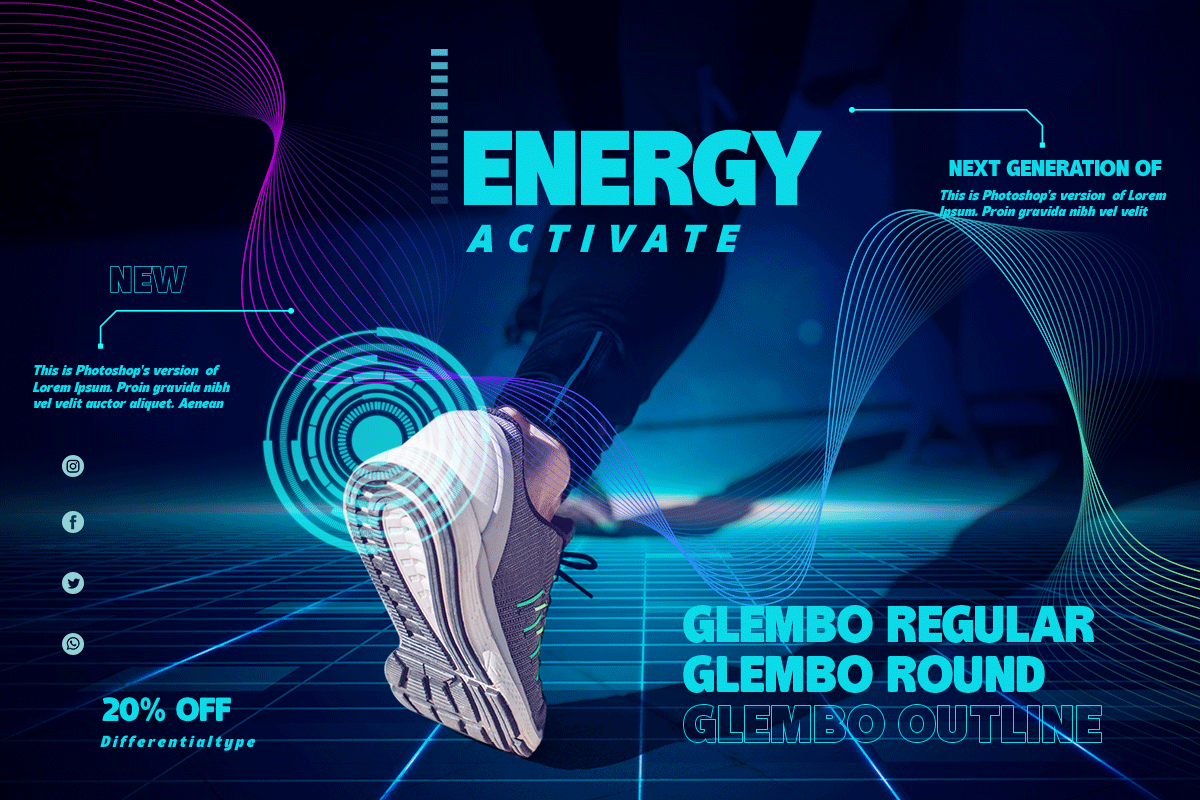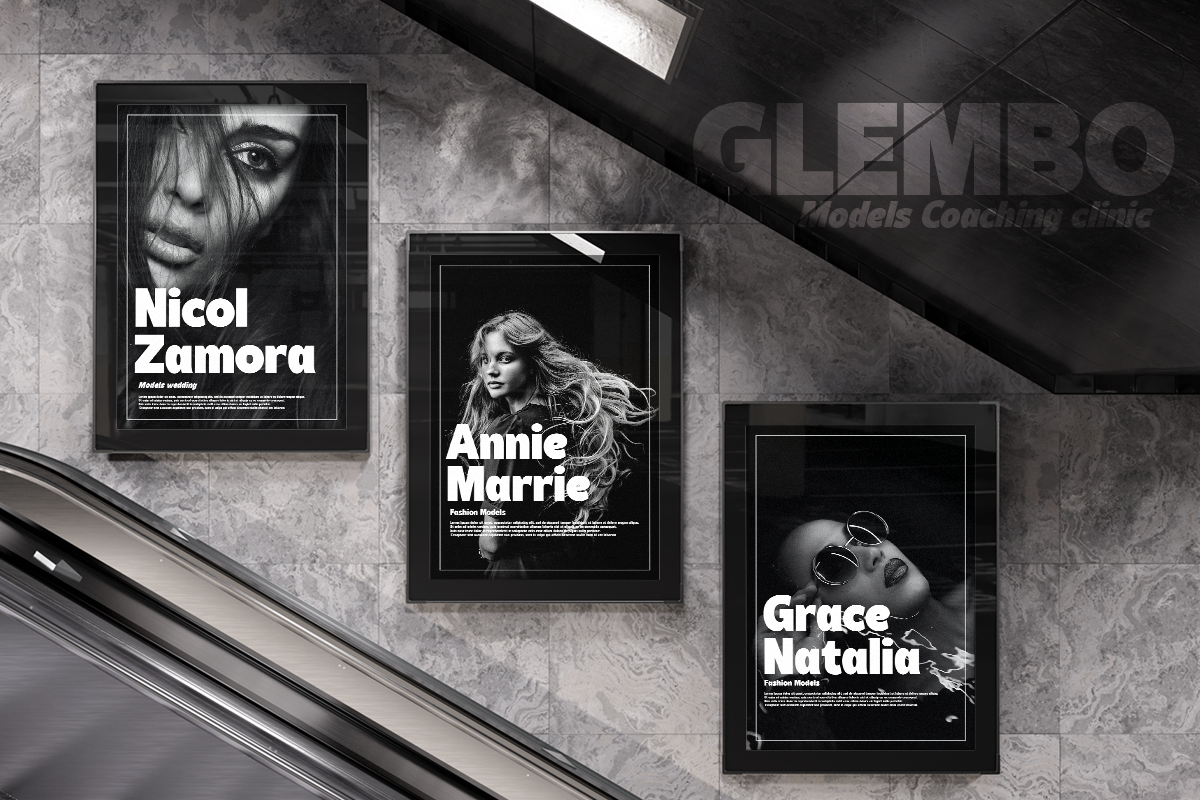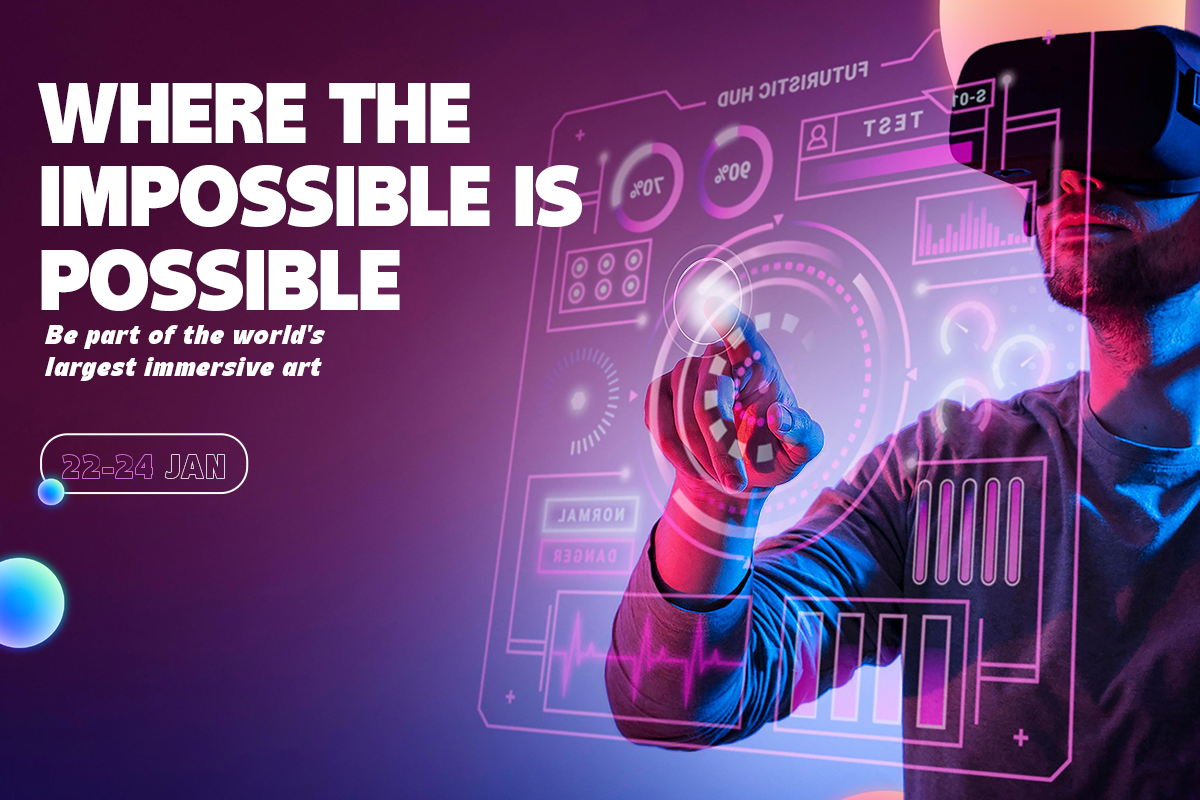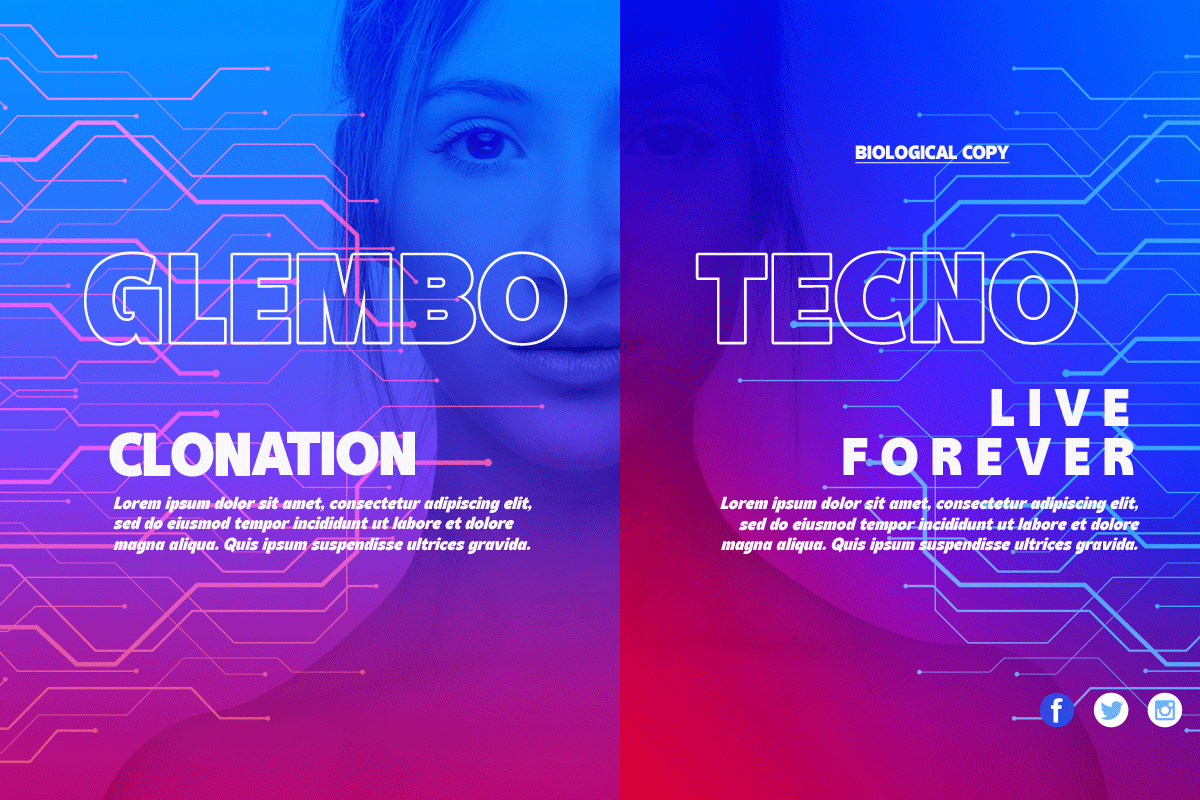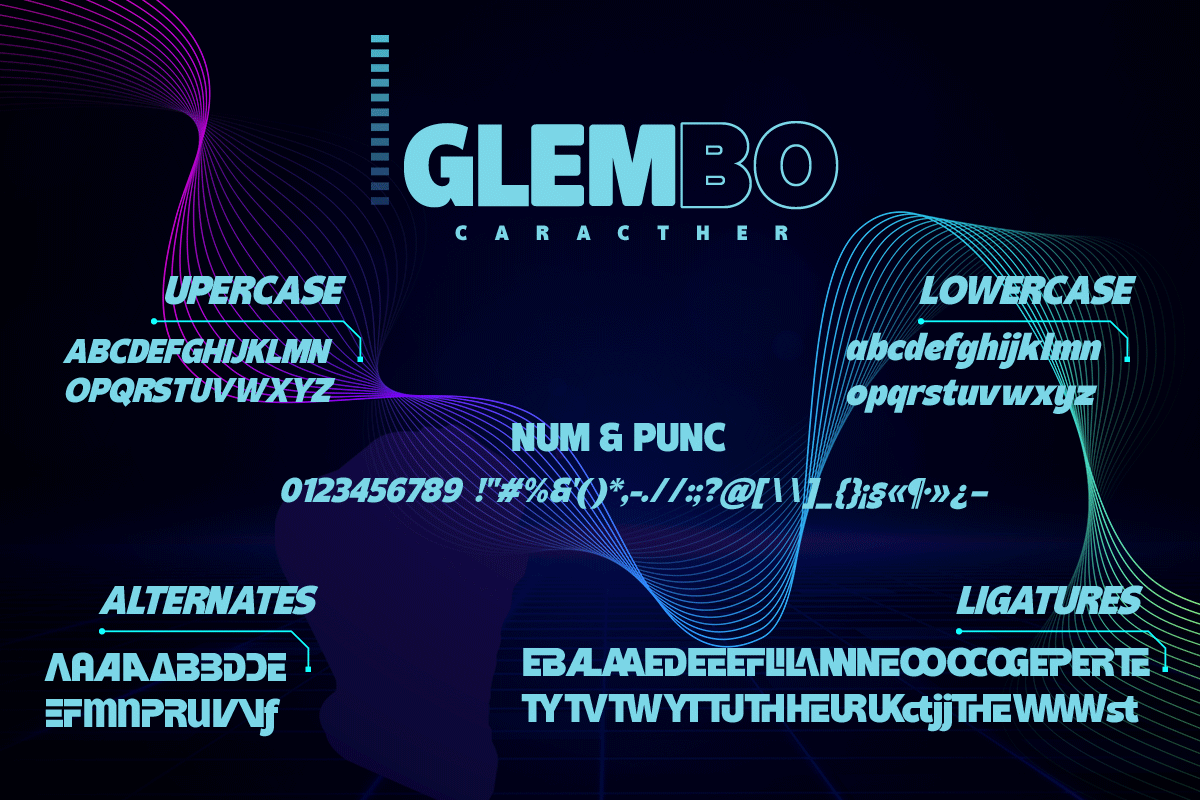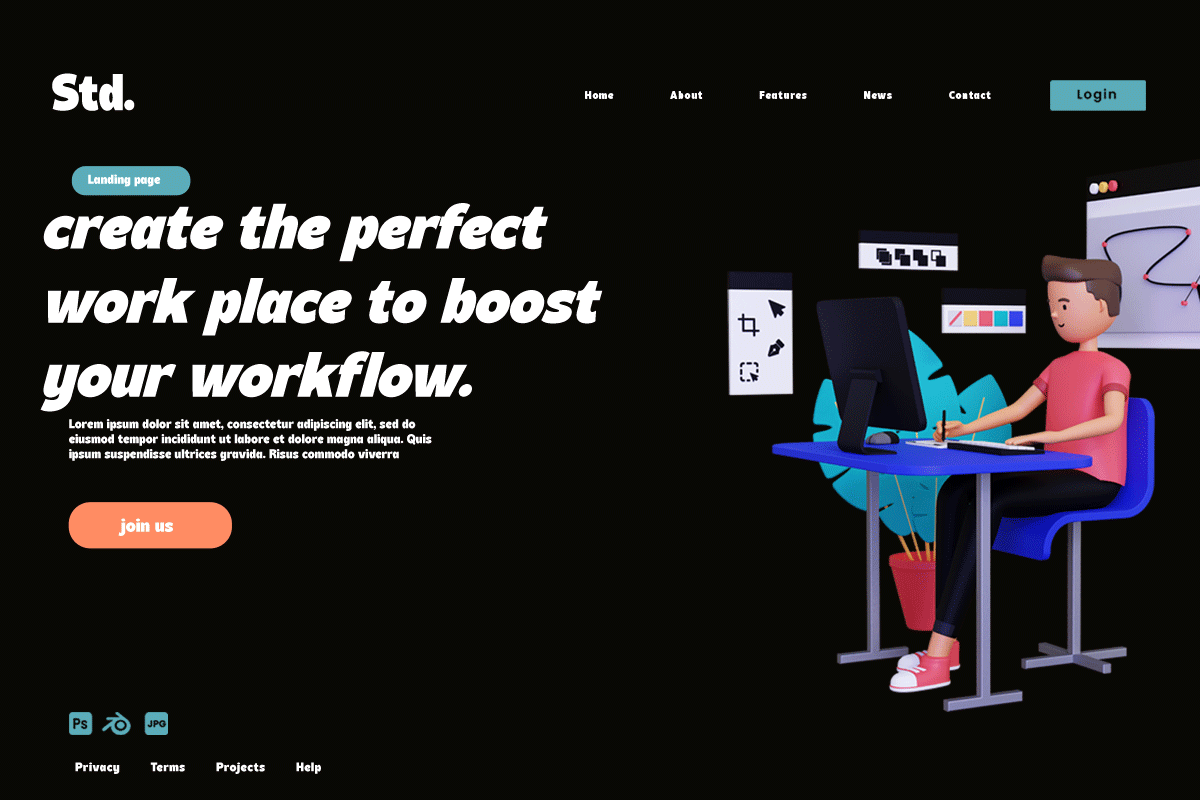
Glembo
Glembo is a bold sans display font. This font has six styles that you can combine. Whatever the topic, this font will be a great asset to your font library, as it has the potential to enhance any creation.